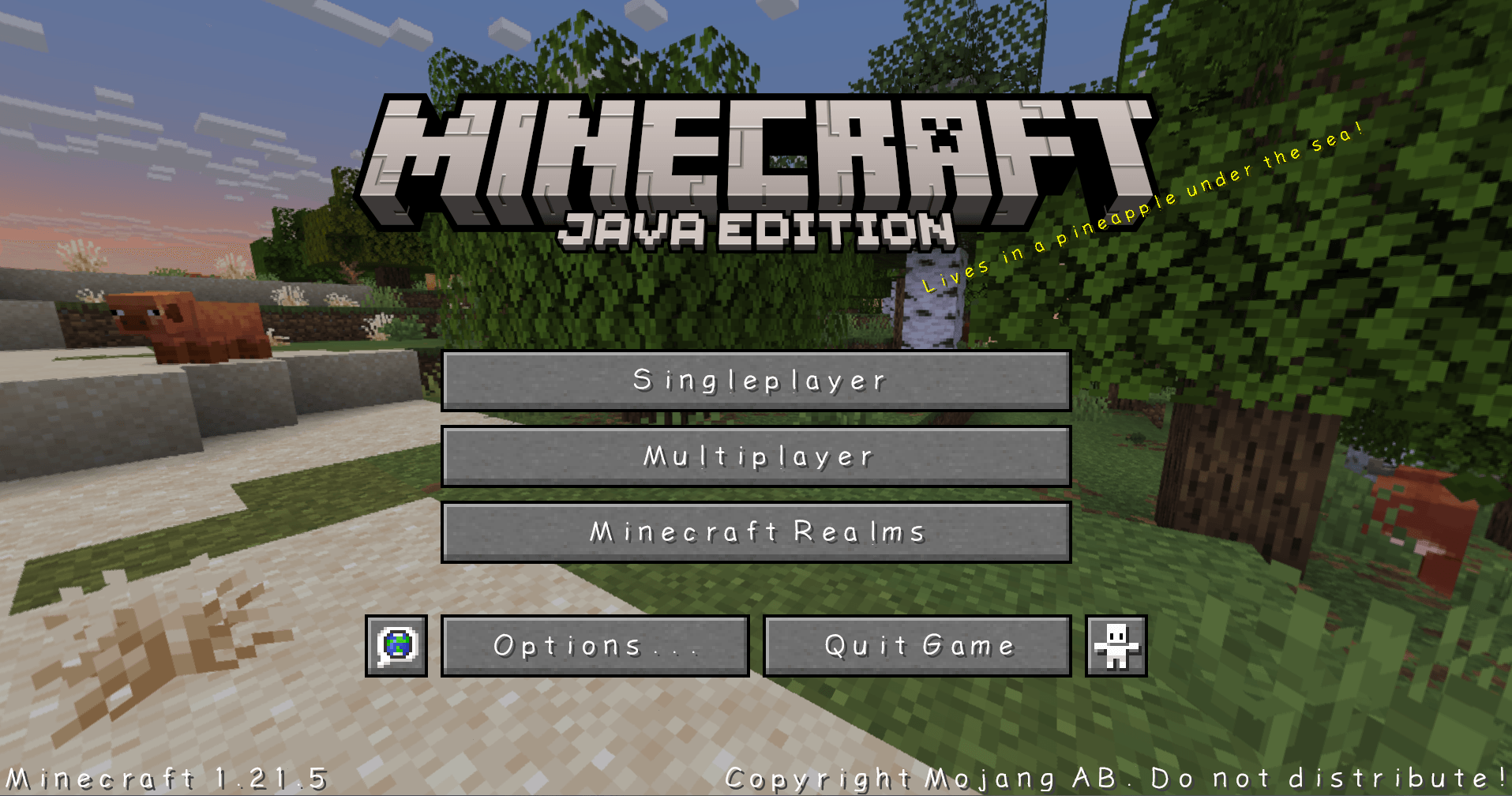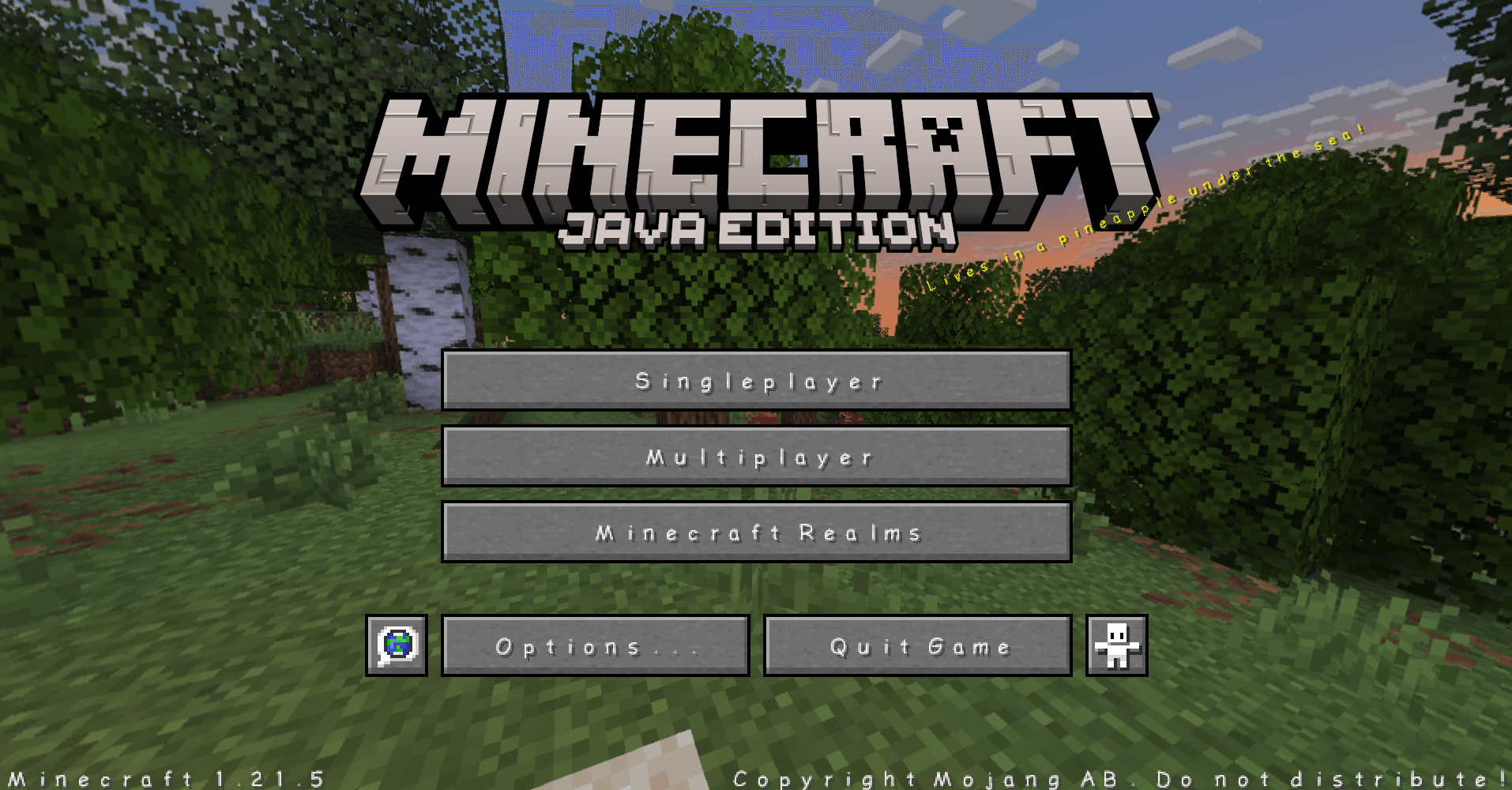
MeshterMash's Comic Sans Font Pack
Changes all the fonts to the "worst" font,
Changes all your fonts to comic sans, the font which was once claimed to be the worst of them all.